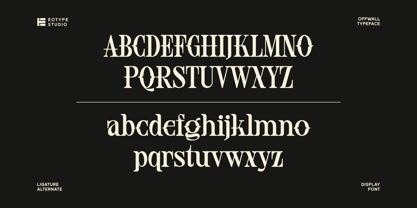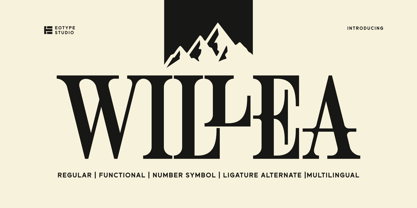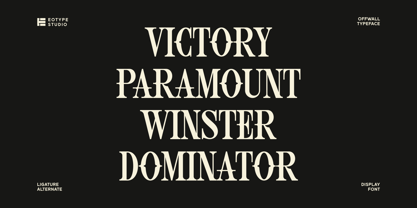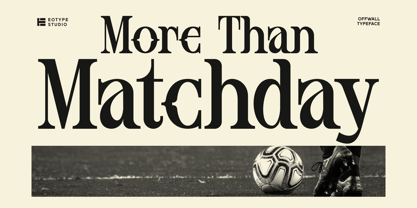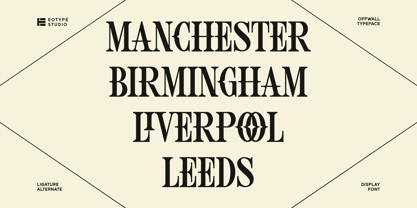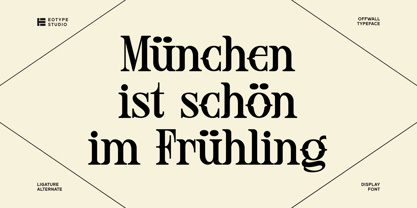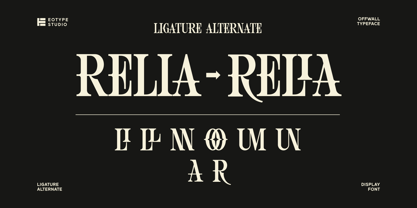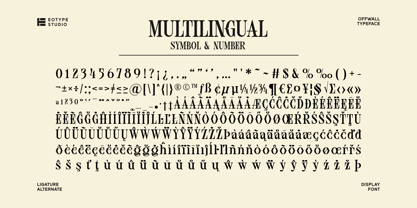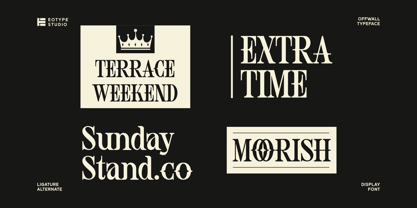
Willea
La famille de polices Willea a été conçue par Fajar Ramadan et publiée par Eotype. Willea contient 1 styles. En savoir plus sur cette famille
Willea is a bold and expressive display serif typeface designed to make a strong visual statement. Inspired by a blend of classic serif elegance and modern experimental shapes, Willea brings a unique personality to any design project. With its high contrast strokes, distinctive curves, and eye catching ligatures, this typeface is perfect for branding, editorial layouts, posters, headlines, logos, packaging, and more. The carefully crafted letterforms deliver both sophistication and artistic flair, making it ideal for designers who want to stand out. Willea comes fully equipped with a rich set of features including stylish ligatures, alternate characters, punctuation, and multilingual support giving you flexibility and creative freedom in your typography.
Eotype Studio is an independent digital creator based in Bandung, West Java, Indonesia. Established in early 2020, Eotype Studio specializes in designing and selling creative, original, and character-driven fonts.As an independent type foundry, Eotype Studio blends contemporary design sensibilities with a distinctive local touch. Each typeface is crafted through visual research, shape exploration, and unique ligature experiments—aiming to deliver bold and functional typography solutions for branding, editorial, and digital interfaces.